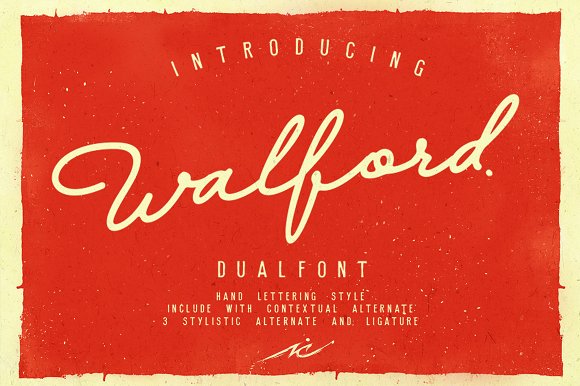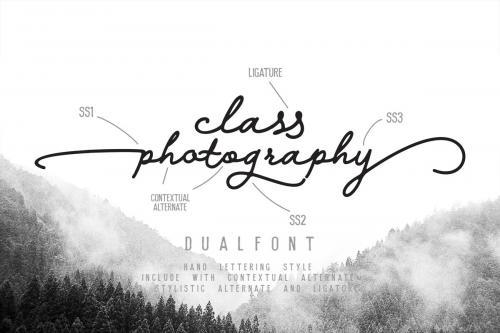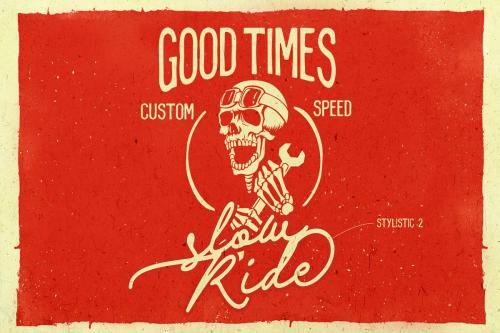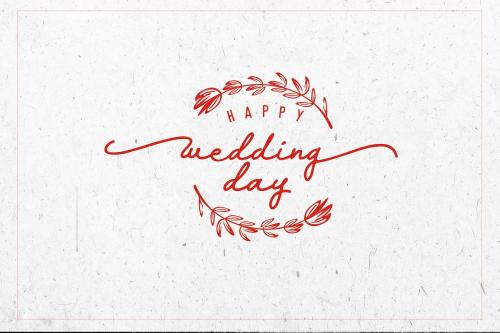
Walford is a type of handlettering font made with several advantages that can add different nuances to your work, this font is suitable for wedding cards, logos, logotypes, letters, covers etc.